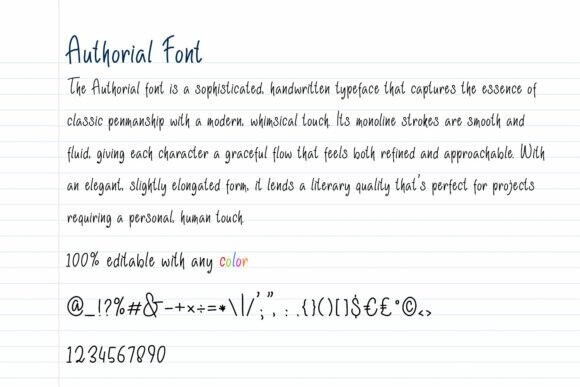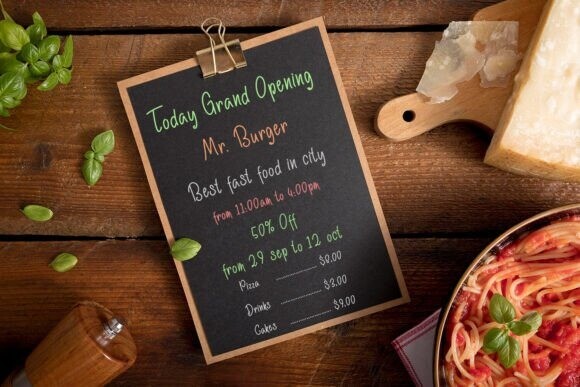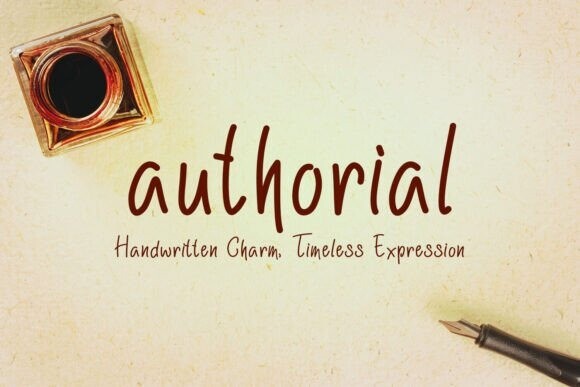
Authorial Font
Authorial font is a sophisticated, handwritten typeface that captures the essence of classic penmanship with a modern, whimsical touch. Its monoline strokes are smooth and fluid, giving each character a graceful flow that feels both refined and approachable. With an elegant, slightly elongated form, it lends a literary quality that’s perfect for projects requiring a personal, human touch.
The font is versatile, offering clean lines and gentle curves that are ideal for book covers, quotes, invitations, or any project where words are meant to be expressive and engaging. The subtle variations in character height and spacing evoke the organic feel of handwriting without sacrificing readability, making Authorial a blend of artful script and practical design.